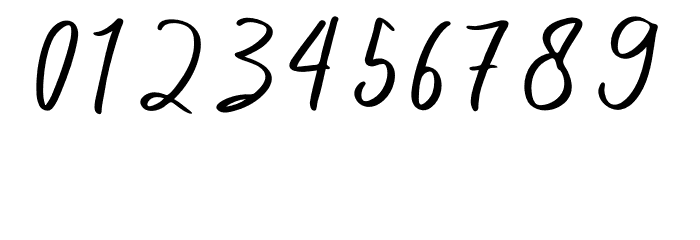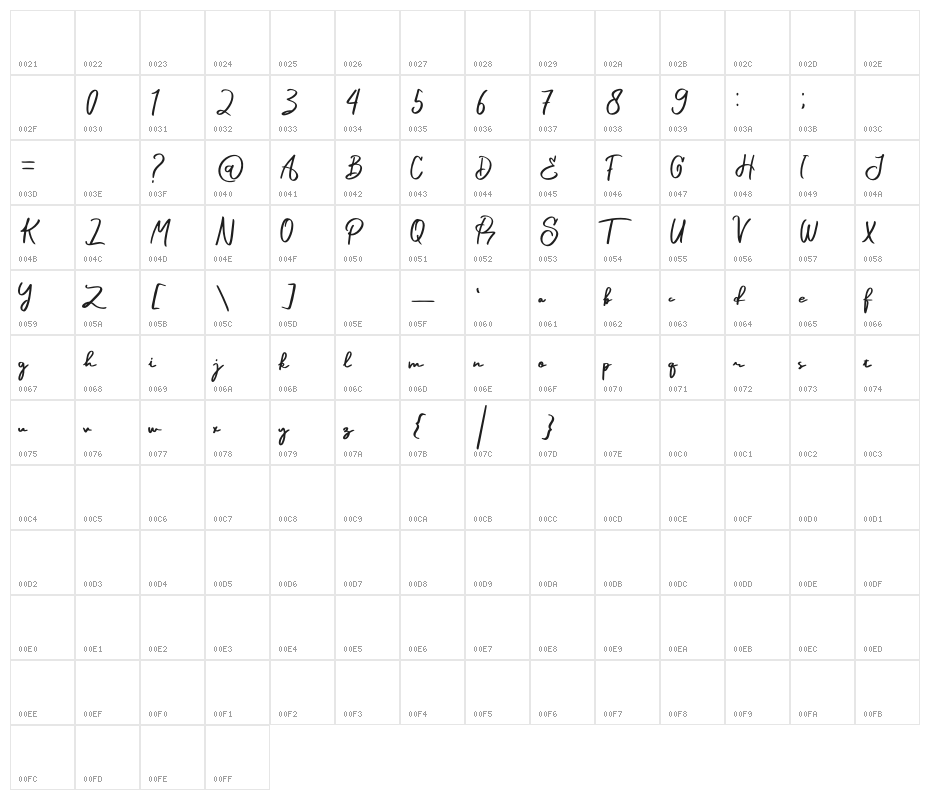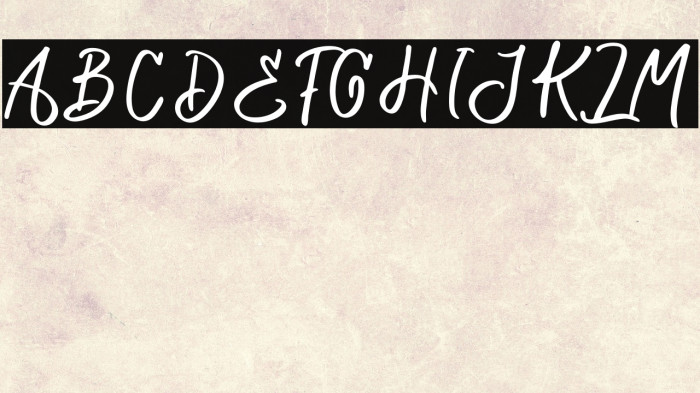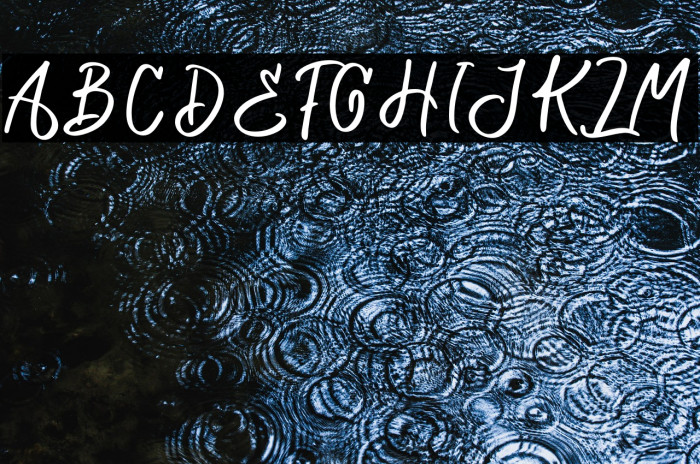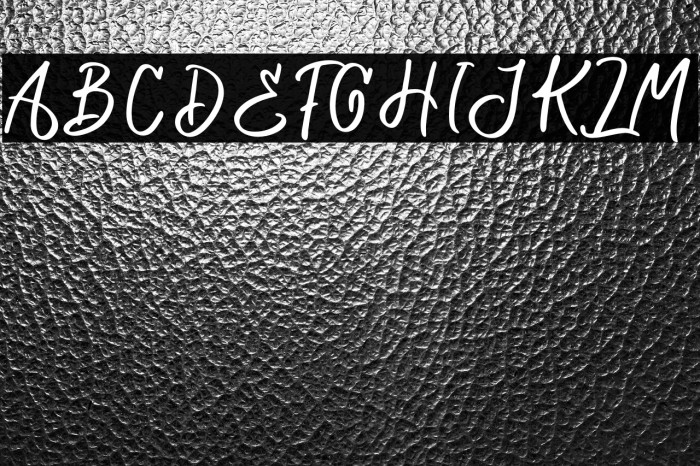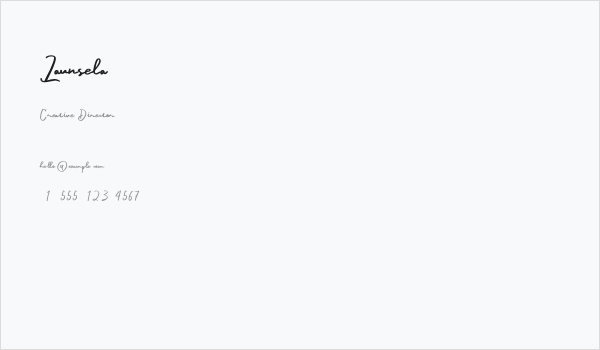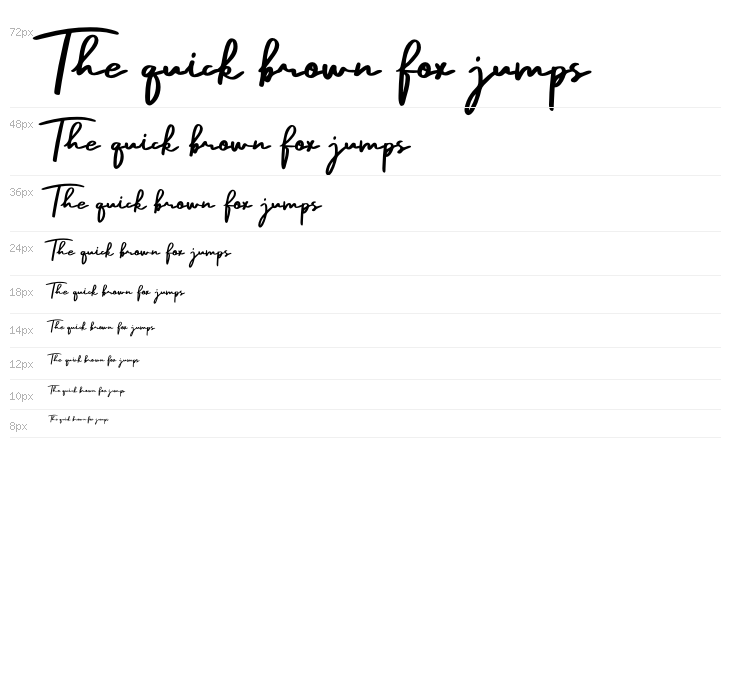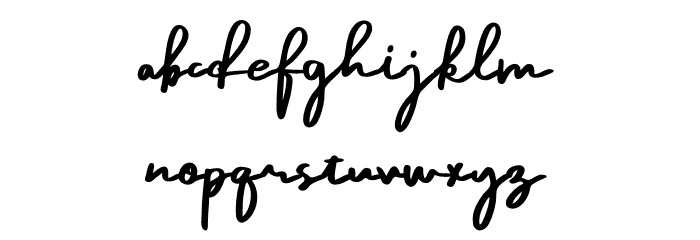
Launsela Font
Launsela Description
This font features a lively and flowing script style that combines elegance with a touch of playfulness. The uppercase letters are bold and dynamic, with sweeping curves and loops that give a sense of movement. The lowercase letters maintain a consistent flow, with a slightly more compact form that complements the uppercase. The numerals are clear and legible, with a slight slant that matches the overall style. This font is perfect for projects that require a personal touch, such as invitations, greeting cards, or branding materials. Its unique character makes it stand out while remaining readable.